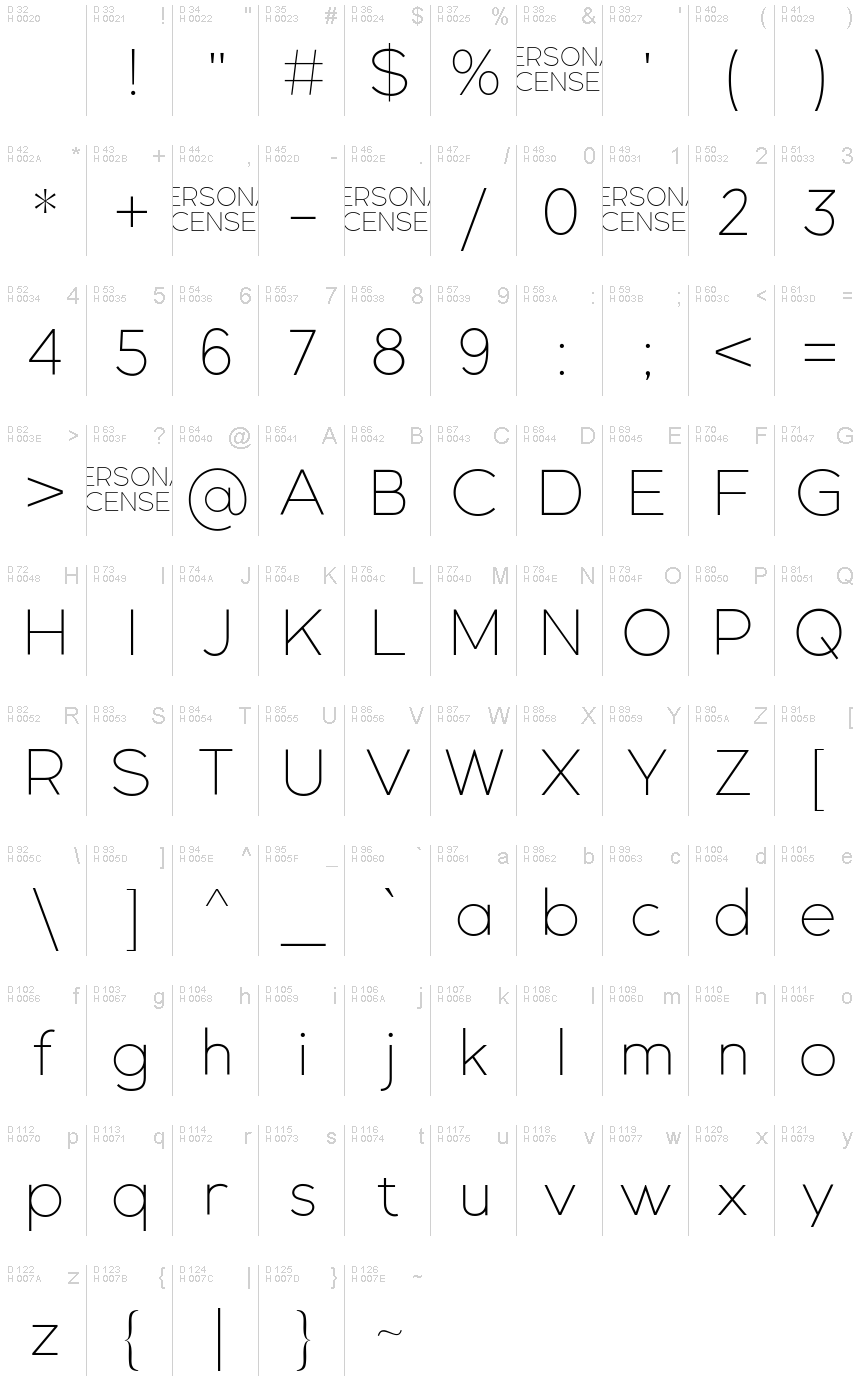
Gexo Sans Thin
Gexo Sans Thin, a creation by Java Pep, is a sans serif font that exudes elegance and modernity. Its light and airy strokes convey a sense of sophistication, making it an excellent choice for designs that require a touch of finesse without overwhelming the content. With its clean lines and uncluttered appearance, Gexo Sans Thin stands out as a versatile font suitable for minimalist branding, high-end editorial work, or any project that benefits from an understated yet stylish typeface.
Its potential to bring contemporary grace to logos, magazines, and digital platforms alike ensures designers will find it invaluable in their typographic toolkit.